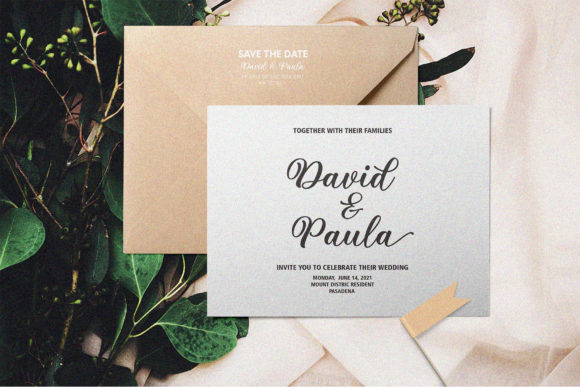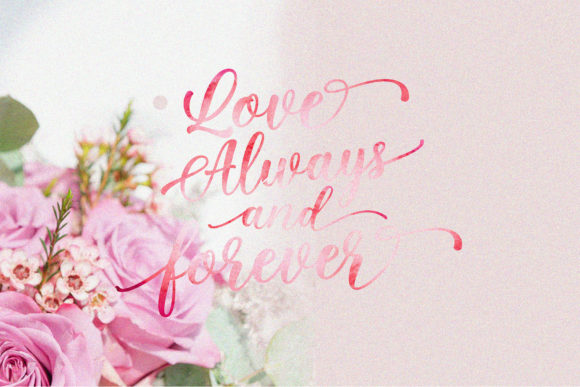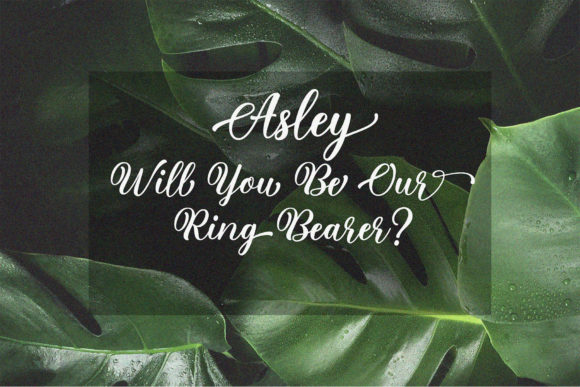
Introduction to Plural Script Font
As you sit at your desk, surrounded by design resources and creative project ideas, you stumble upon the perfect font to elevate your next project. The Plural Script Font is that elusive treasure, a high-quality, PUA-encoded calligraphy font that combines fantasy and handwritten ink in a beautiful, one-of-a-kind way. Whether you’re designing a wedding invitation, a blog title, or a business card, this font is sure to make a lasting impression.
But what makes the Plural Script Font so valuable for designers? Its versatility and uniqueness are just the beginning. With a wide range of special characters and swashes, you can add a touch of personality to any design. Plus, with a transparent background, you can easily combine it with other design elements to create a truly cohesive look.
Key Features of Plural Script Font
- High-quality font designed for creative projects, perfect for designers and artists looking for a unique design resource.
- Features a large character set, including uppercase and lowercase letters, numbers, and special characters, making it suitable for a variety of creative projects.
- Unique script font style, ideal for adding a touch of elegance and sophistication to designs, logos, and branding materials.
Honest Review: Plural Script Font
I recently had the opportunity to try out the Plural Script Font, and I must say it’s been a game-changer for my design projects. As a designer, I’m always on the lookout for high-quality design resources that can elevate my creative work.
- ✨ Elegant style that’s versatile and suitable for various design projects
However, there are a few limitations to consider. The font may not be suitable for projects that require a transparent background, as the design may not render well. Additionally, the font’s style may be too elegant for certain design projects, so be sure to use it sparingly.
Overall, I’m really impressed with the Plural Script Font and would definitely recommend it to fellow designers. Its high quality and versatility make it a valuable design resource, and its free download option is a huge bonus.
Tips for Getting the Most Out of Plural Script Font
Use the Plural Script Font in creative ways, such as:
- Headings and titles.
- Body text.
- Logos and branding.
The Plural Script Font is ideal for:
- Brochures and flyers.
- Business cards and letterheads.
- Websites and landing pages.